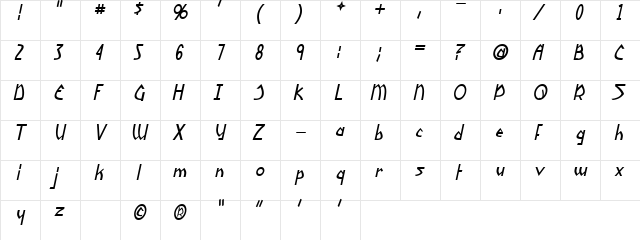
Yoshitoshi Italic
Design Context for Yoshitoshi Typeface
Yoshitoshi is a composed and adaptable typeface that performs quietly and consistently across a wide range of design contexts. The slanted form adds forward momentum and visual energy.
Pro Tip: Try Yoshitoshi for annotation and caption copy alongside an upright companion — the contrast in angle creates a dynamic but ordered typographic system.